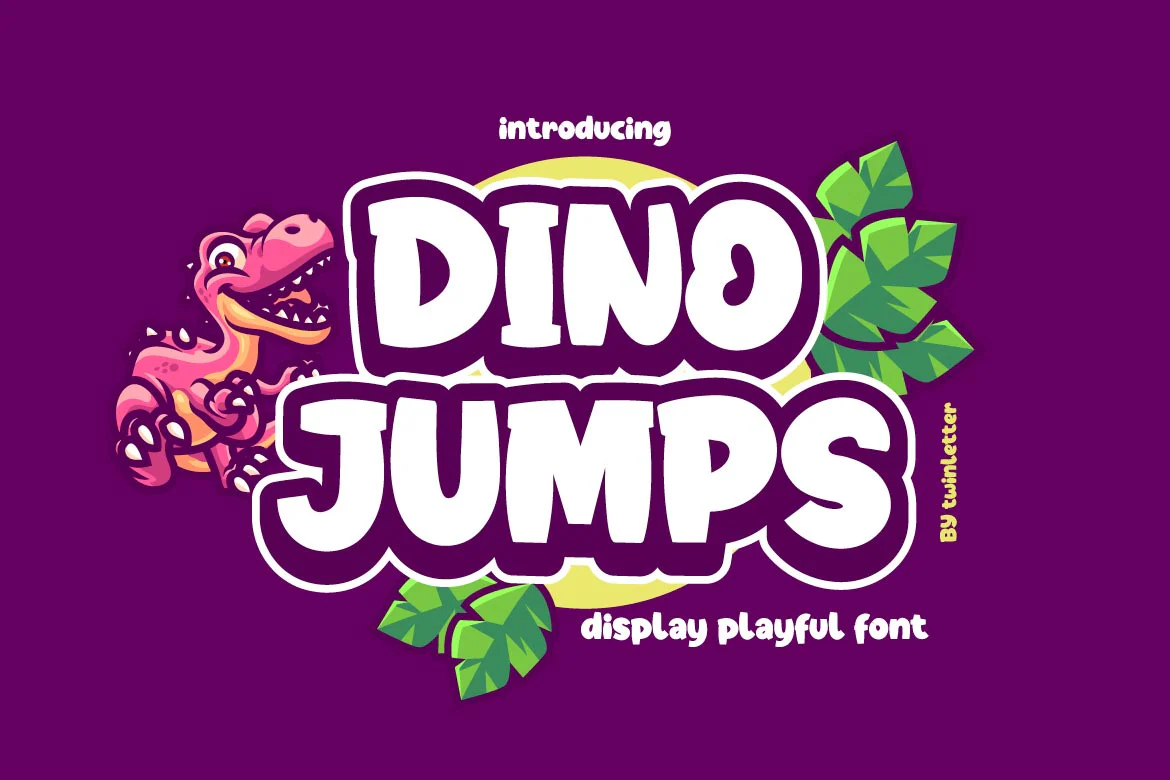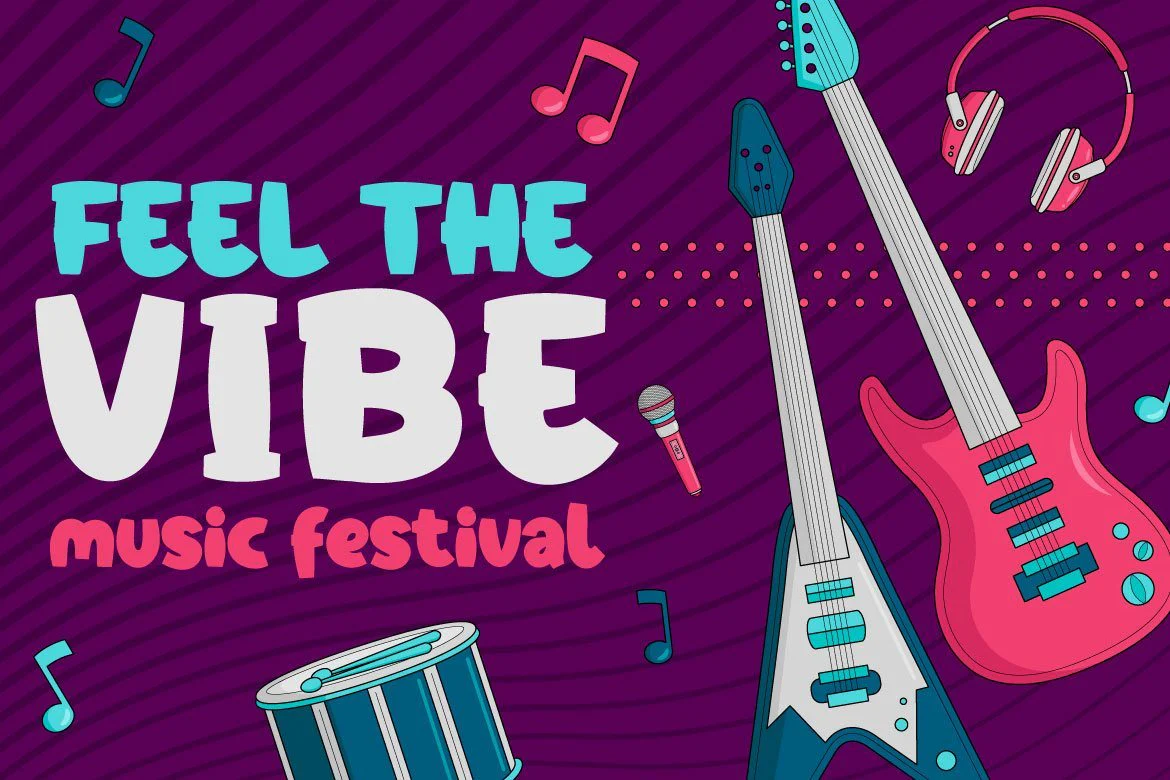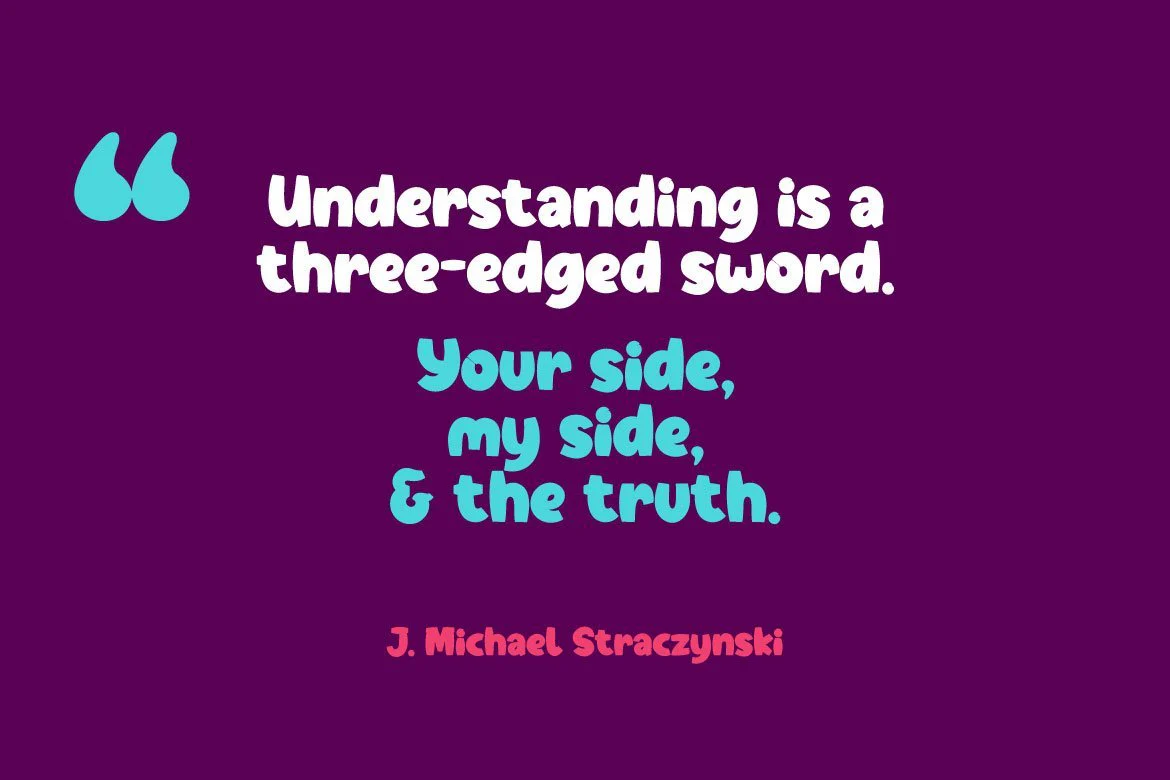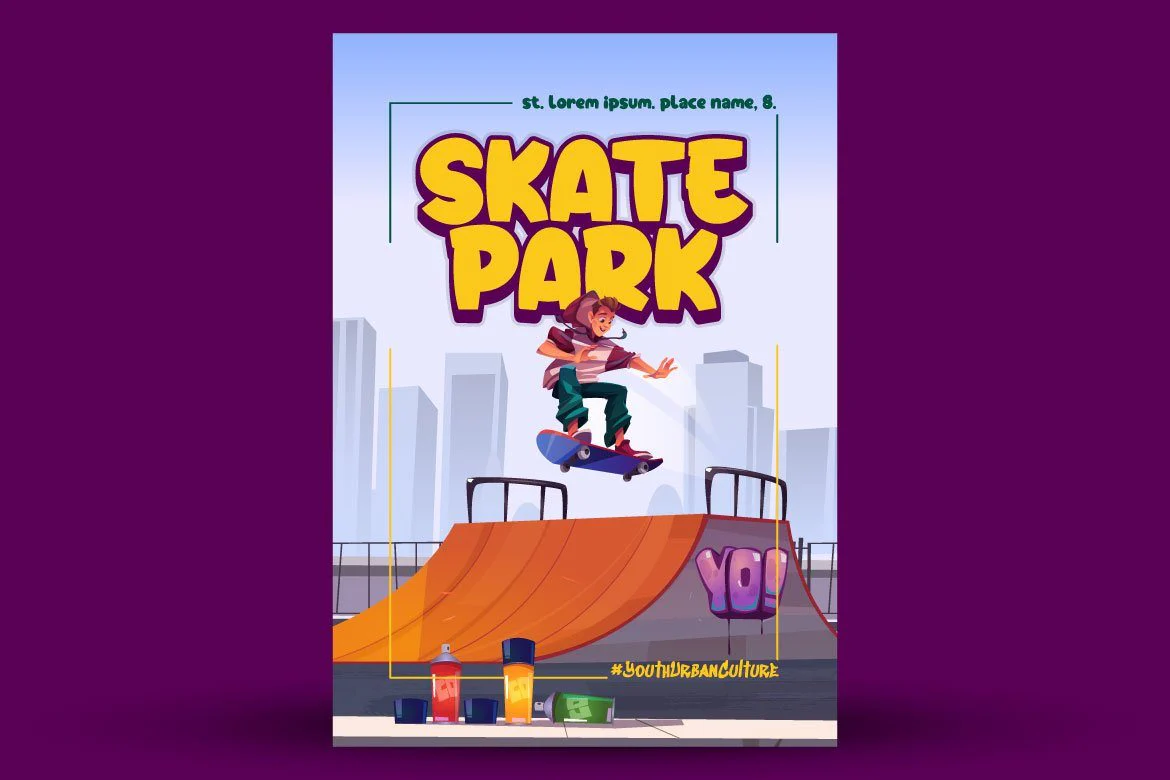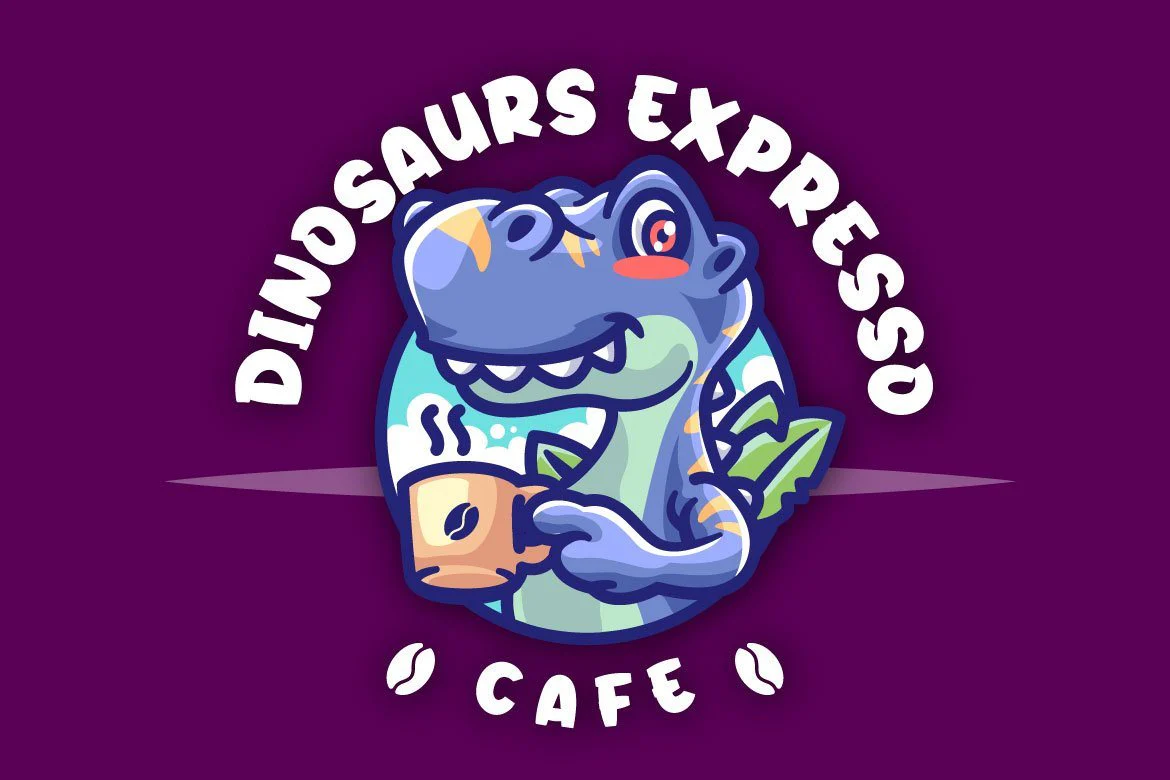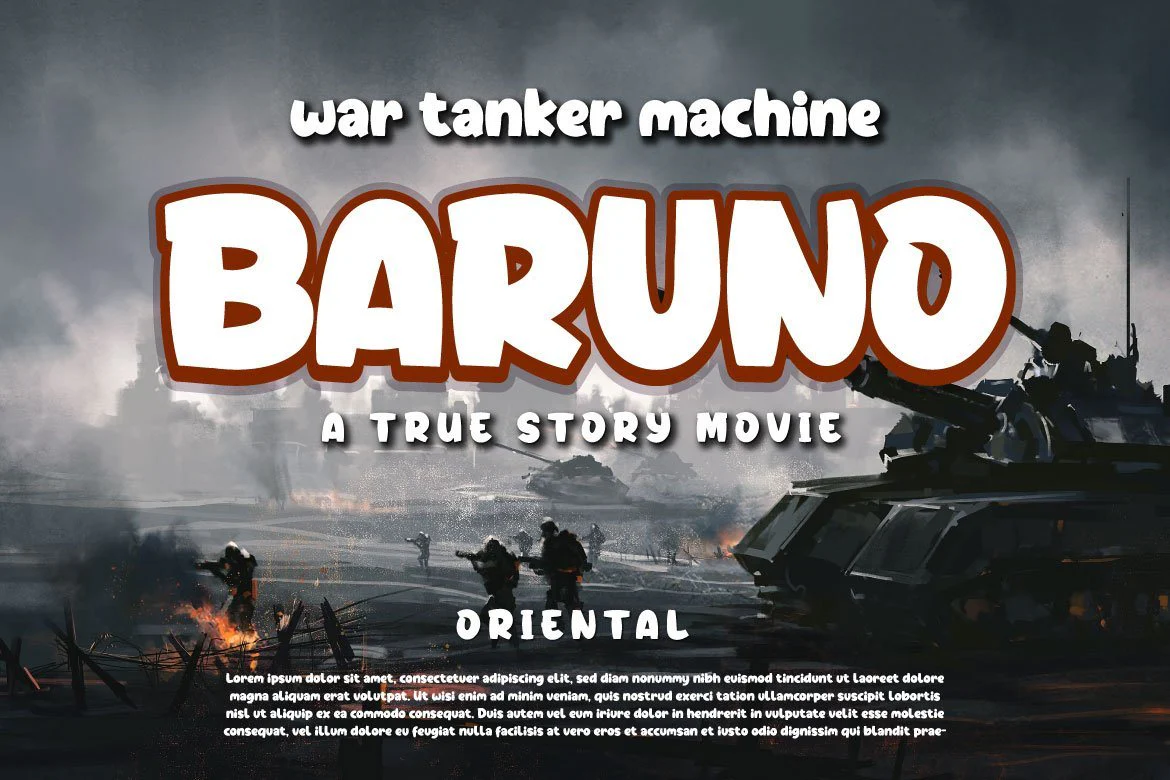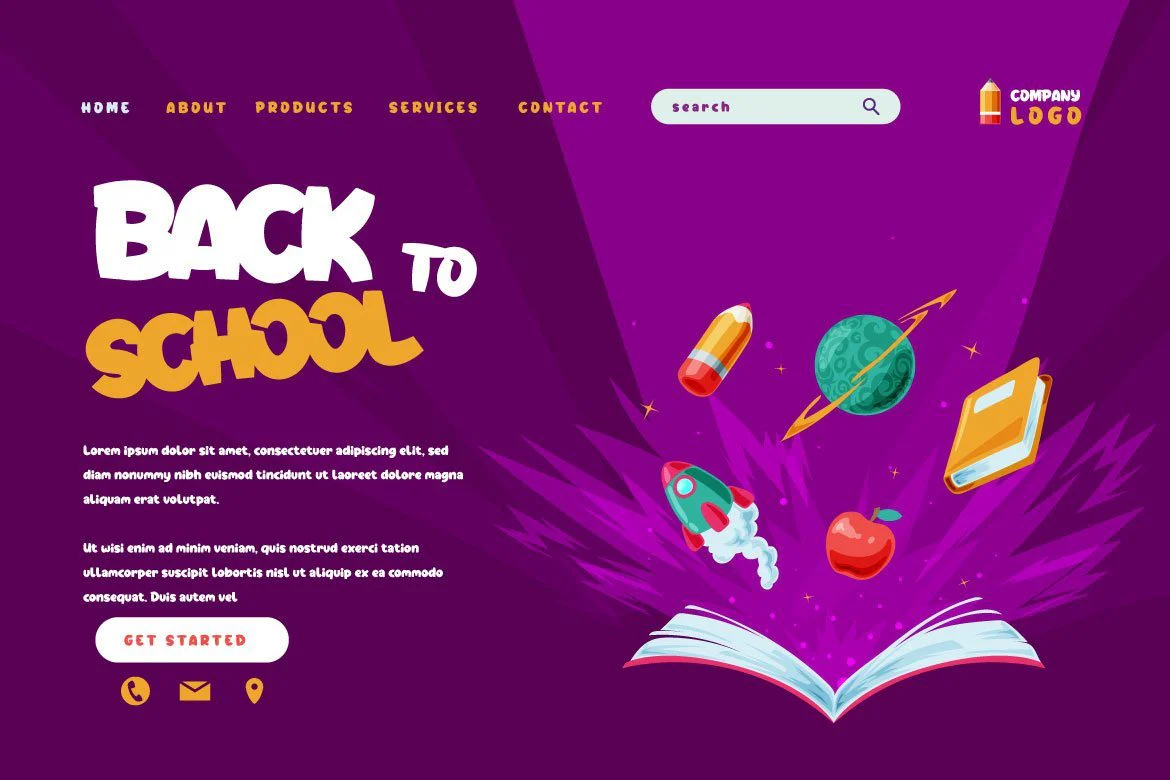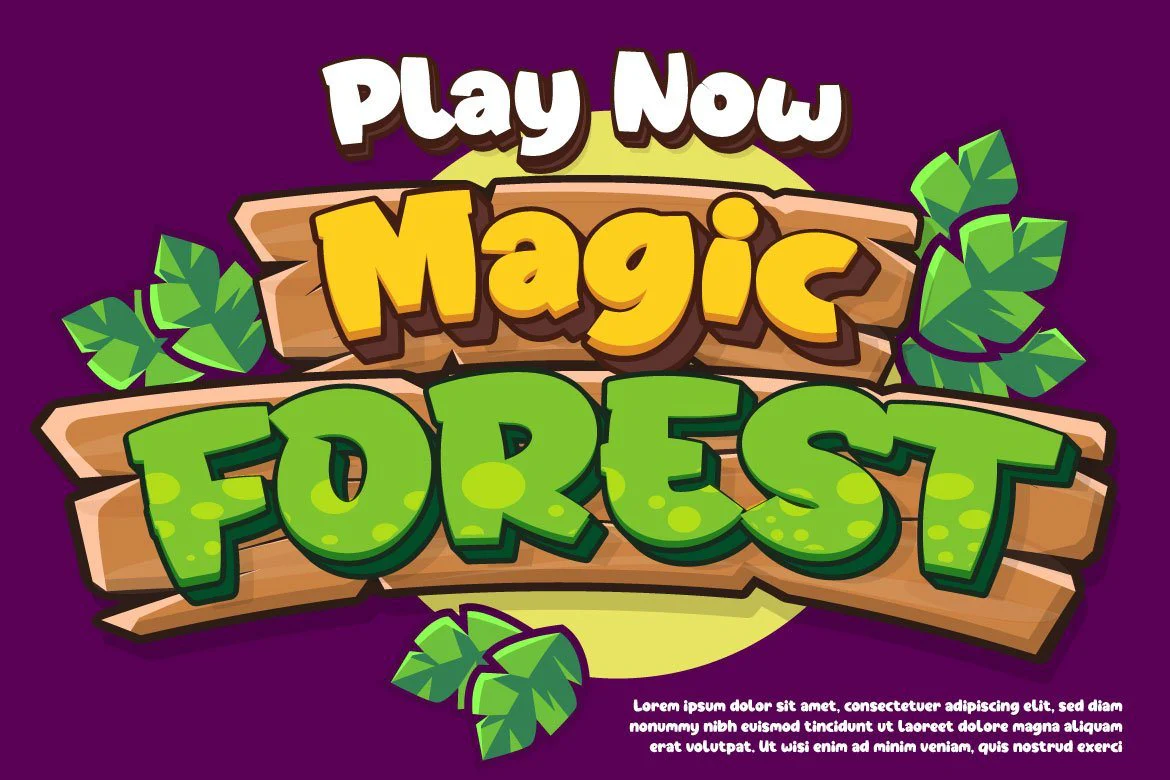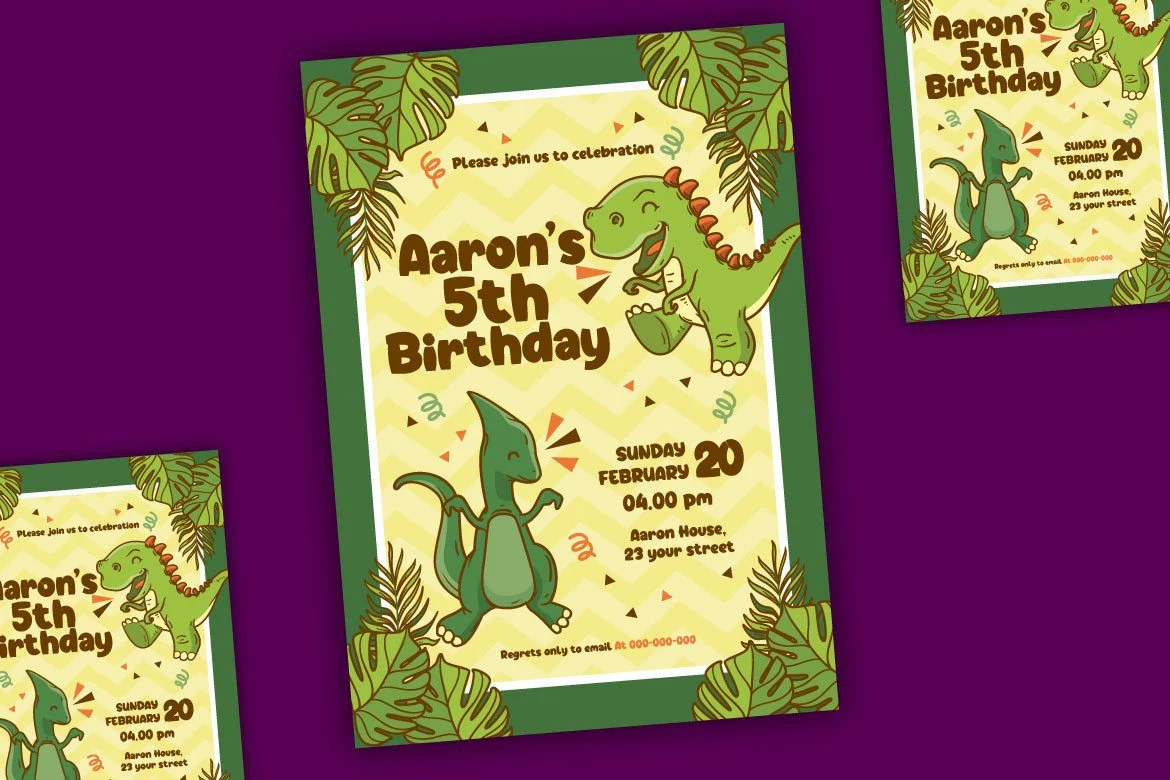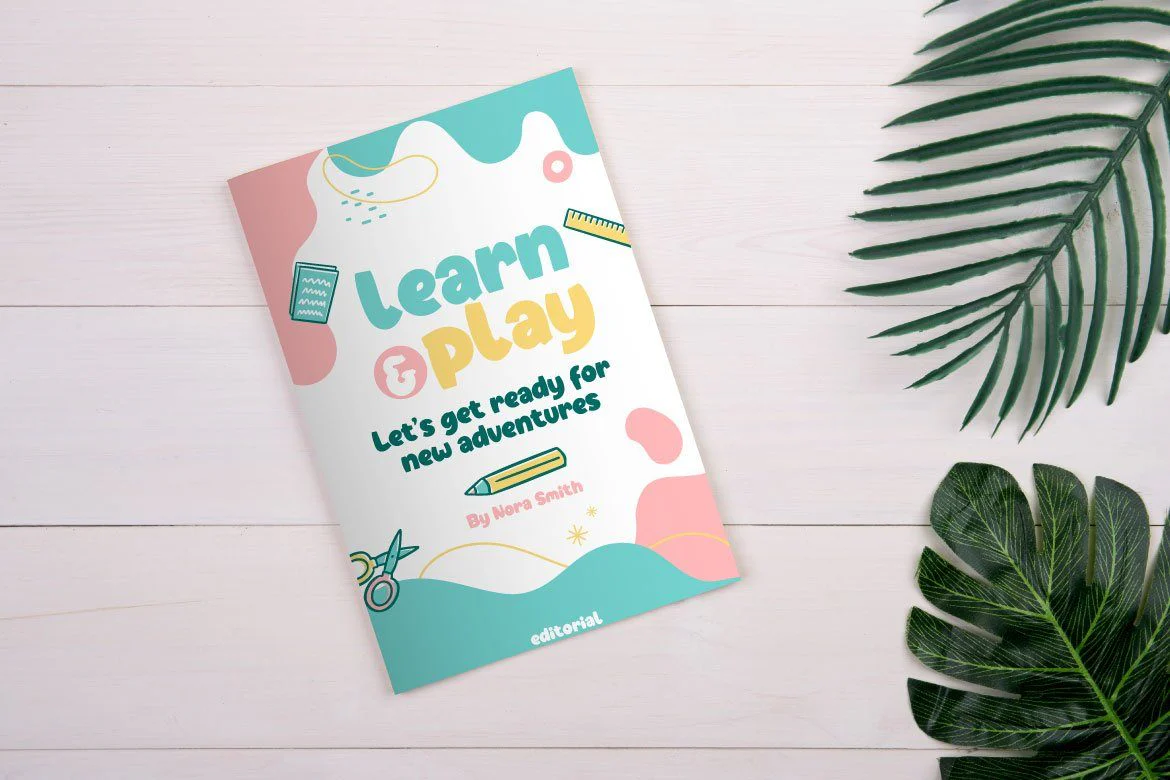
Dino Jumps Display Playful Font
Dino Jumps is a fun typeface that is attractive, gorgeous, and funny. It is designed for those who are attractive, handsome, and creative.
Use this typeface in all of your designs to express your extraordinary projects with presentations that can attract visitors due to the beauty of visual displays.
This typeface can be used for a variety of themes and issues in your project.
This font is perfect for games, sporting events, branding, banners, posters, movie titles, book titles, quotes, logotypes, and more.
of course, your various design projects will be perfect and extraordinary if you use this font because this font is equipped with a complimentary font family, both for titles and subtitles and sentence text, start using our fonts for your amazing projects.